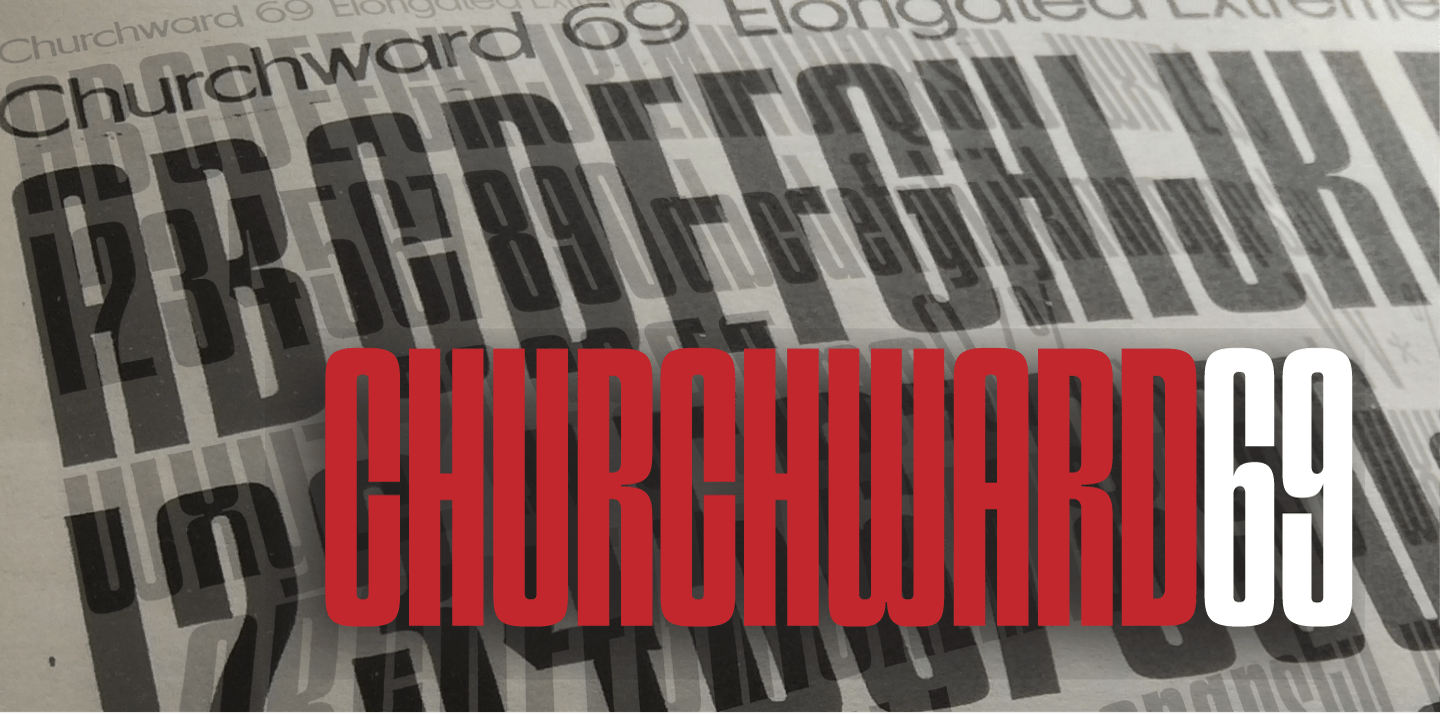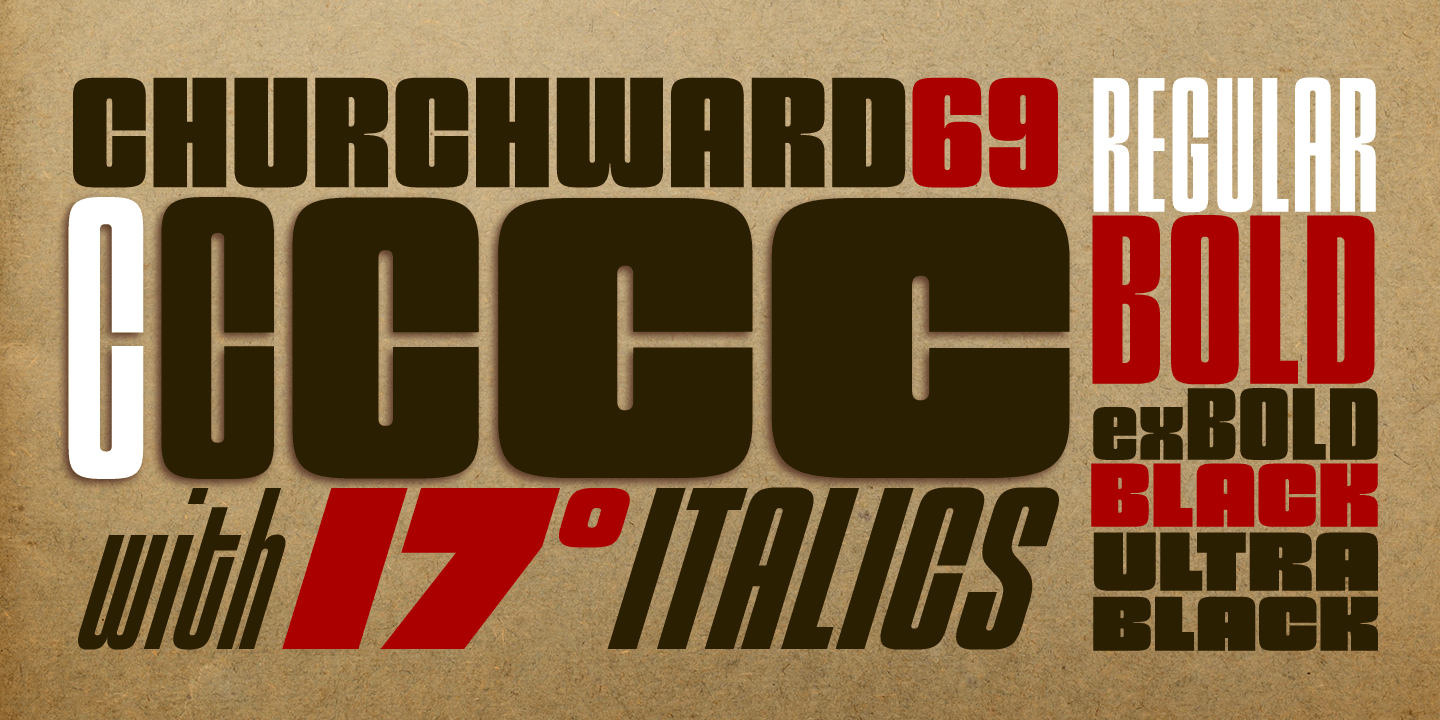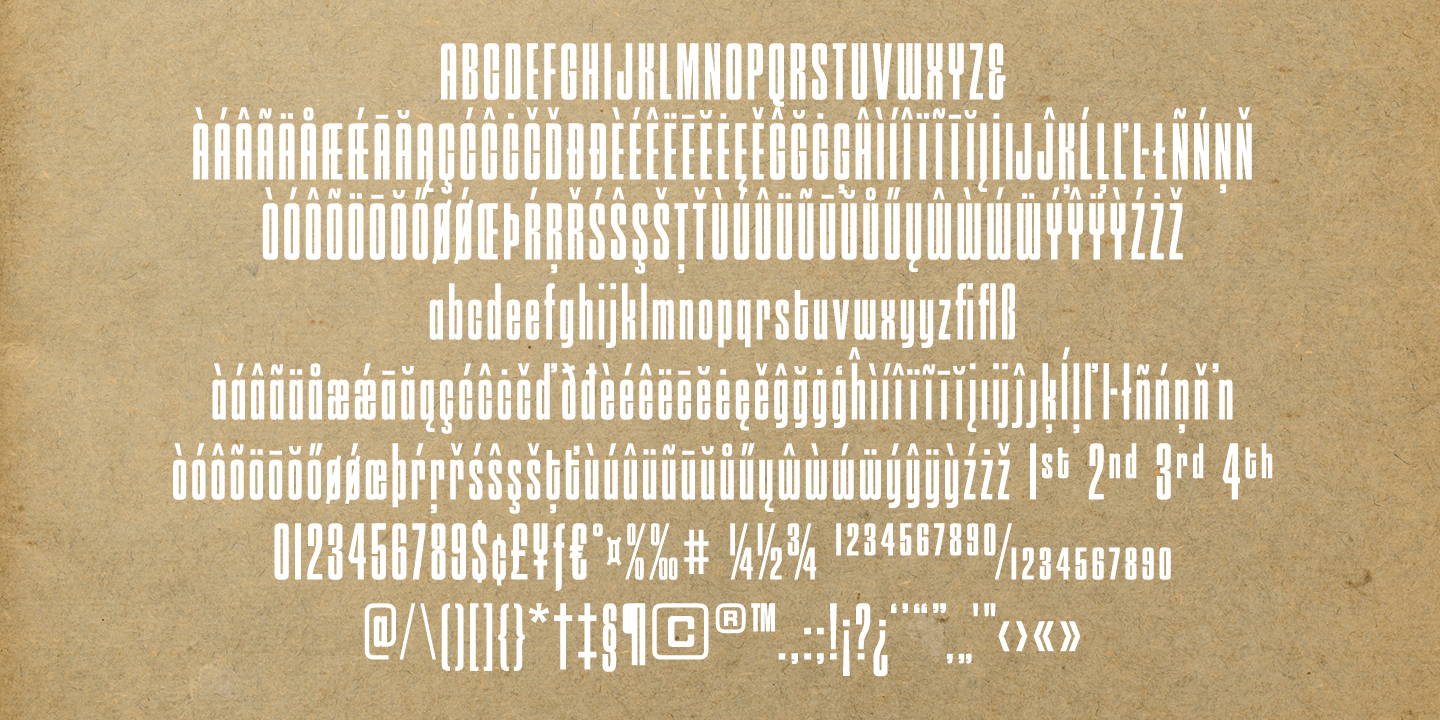
Churchward 69
Churchward 69 Regular is part of a ten weight typeface family originally designed during the late 1960's by the late type designer Joseph Churchward. It is an extremely condensed sans serif and works well with the Italic version. It includes OpenType features for superior and inferior figs, fractions, and tabular/proportional figure sets, and it supports an extended European character set.